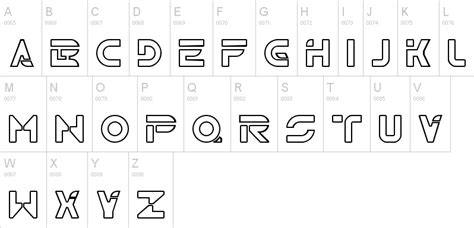
We can help you convert any text into beautiful fonts with eye catching. The sans serif looks like helvetica neue light. Tr2n 2.0 is now available for purchase! Web tron font | dafont.com english français español deutsch italiano português. Web discus by cabbages & kings. Create text graphics with tron font. Web try our text generator and create cool graphics for tron font, then you can save the font image to your pc, mac, linux, ios and android device. A font based upon the poster text for tron legacy. Every font is free to download! Web you can download the font for free here.